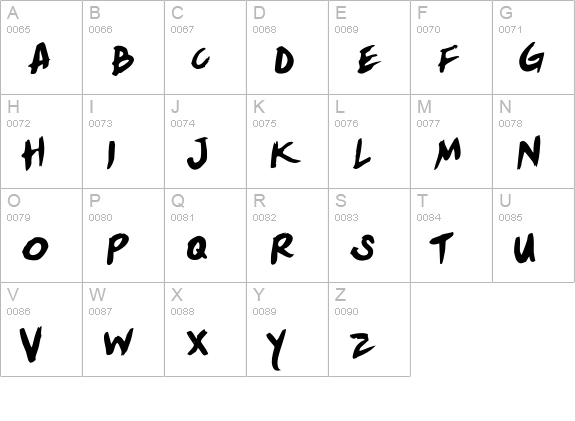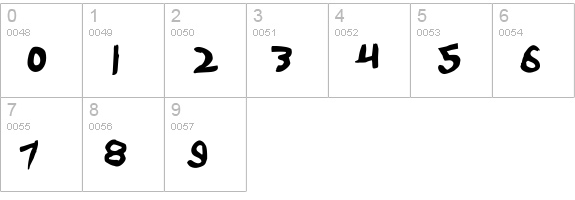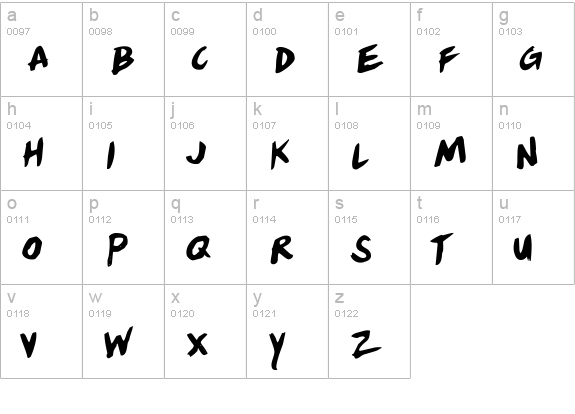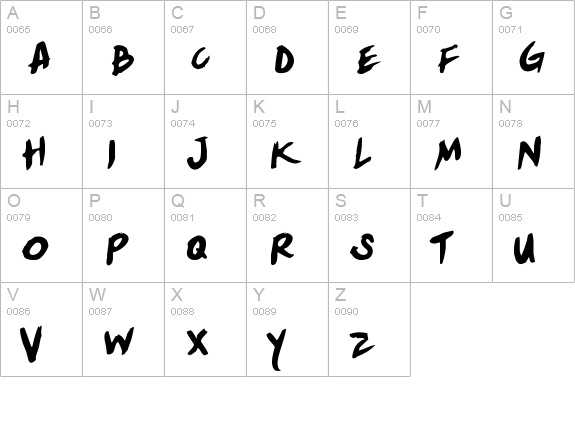
Yellowjacket Rotate Font Details
Yellowjacket Rotate font is a modern and stylish typeface that exudes creativity and energy. With its unique rotation effect, this font is perfect for adding a dynamic and eye-catching touch to any design project. The sleek lines and bold letterforms of Yellowjacket Rotate make it a versatile choice for a wide range of applications, from branding to graphic design. What makes Yellowjacket Rotate font even more appealing is that it is available for free download at FontsMarket.com. This means that you can easily access this stunning font and use it in your projects without any hassle. Whether you're looking to make a statement with your typography or simply want to add a touch of flair to your designs, Yellowjacket Rotate font is the perfect choice. Download it today and let your creativity shine!